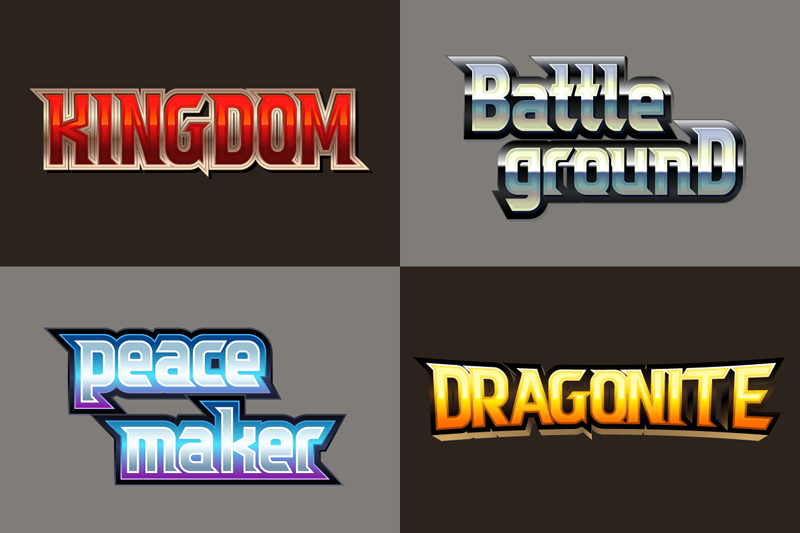
Preview and download Royal Knights Font. Created by Mahmud Fajar Rosyadi in Gothic Modern styles with Demo license.
Royal Knights Font is a strong & powerful font with sharp corner style. Combination of thick, pierce edged, & intense are make it stand out more. You can buy full license here: https://creativemarket.com/mikailain/5114134-Royal-Knights Or contact me at firstlastman@gmail.com Royal Knights Regular. Copyright � 2020 by HoPoYa Studio�. All rights reserved. |